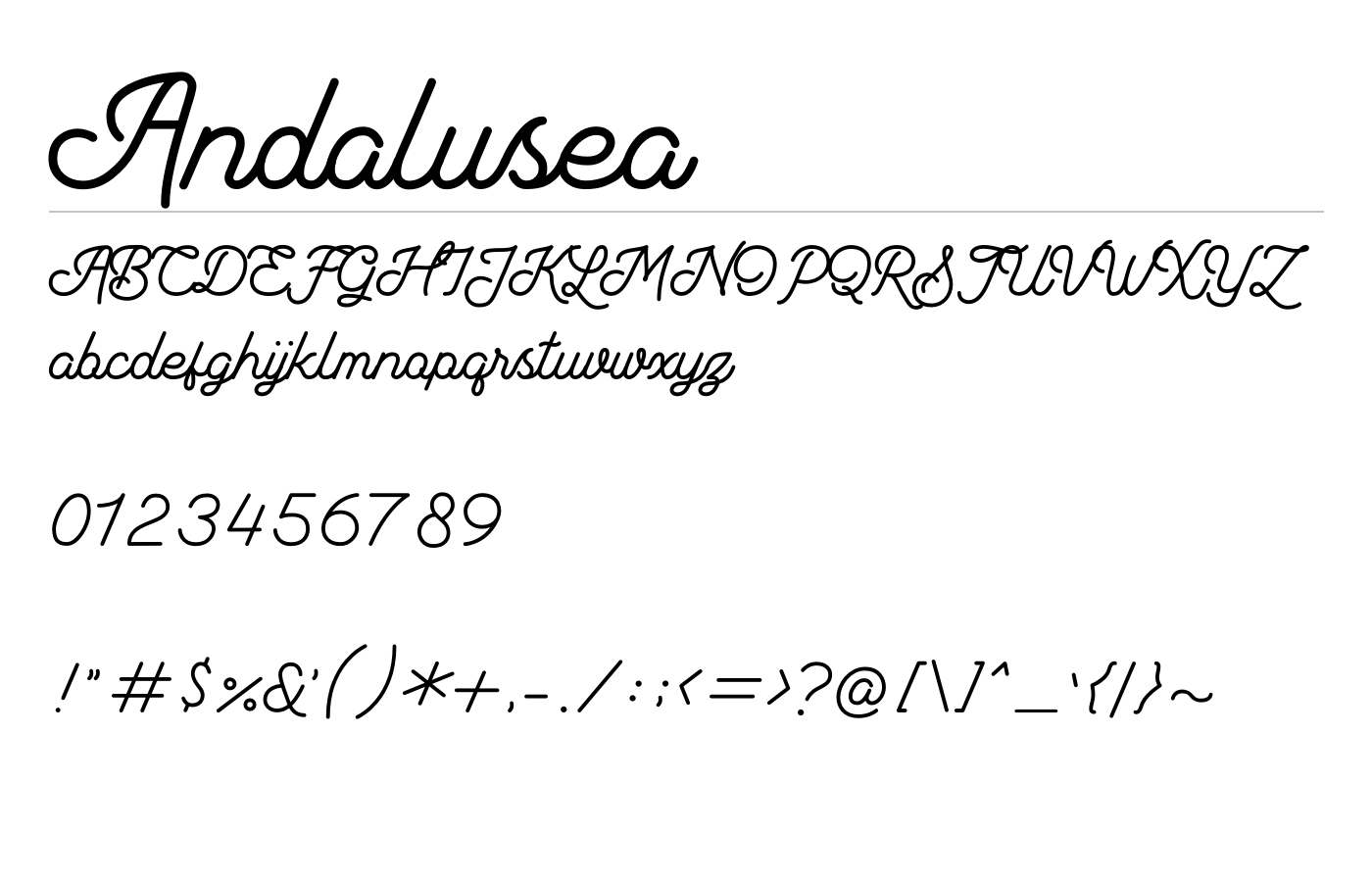
Andalusea is an elegant script font featuring smooth, flowing lines and a light, graceful weight that gives it a delicate and refined look. Its narrow, connected letterforms with subtle curves create a sense of sophistication and charm, making it ideal for stylish branding, invitations, and feminine design projects where a touch of classic elegance is desired. This font works beautifully in headlines and decorative text, lending a warm, inviting personality without overwhelming the reader.
Andalusea Font